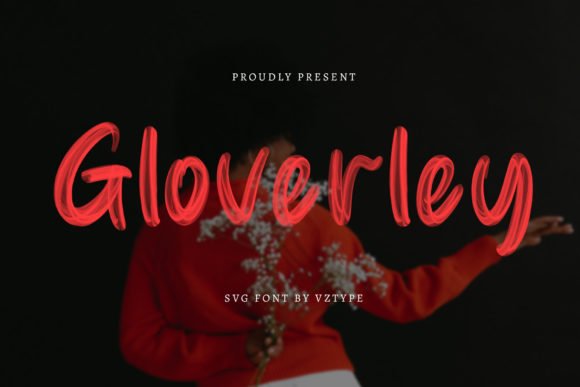
Give Your Creative Ideas a Personal Touch with Gloverley Font
You know that moment when you’re brainstorming ideas and suddenly, something sparks? The room fills with excitement, and you can’t wait to bring your vision to life. For designers, this feeling is a regular occurrence, but sometimes, we need a little extra oomph to make our ideas stand out. That’s where Gloverley Font comes in – a sweet and quirky handwritten font designed to add a personal touch to your creative projects.
With Gloverley Font, you can infuse your designs with a unique, handcrafted feel. Its brush pen-inspired strokes and playful flair make it the perfect choice for anything from invitations and social media graphics to advertisements and packaging. As a designer, you’ll appreciate the versatility of Gloverley Font, which can be used to create a wide range of styles and moods.
Gloverley Font Key Features
- Unique Characteristics: The font features a distinctive, hand-drawn feel with subtle texture and organic elements, giving it a unique aesthetic that sets it apart from other sans-serif fonts.
Gloverley Font Review
Overall, I think Gloverley is an interesting font that has some unique qualities. ✨ I appreciate the bold, playful feel it gives to text, making it perfect for headings and titles. The font’s dynamic curves and varying line widths add a sense of movement and energy, which can be very engaging for readers.
- ✨ Unique, bold feel that grabs attention
- ✨ Suitable for headings and titles
- ✨ Dynamic curves and varied line widths
- ✨ Good for creating a sense of movement and energy
However, I do have a few reservations about Gloverley. ⚠️ One of the main issues is its readability at smaller font sizes. The font’s boldness can make it difficult to read when the text is reduced, which may not be ideal for body text or large blocks of text.
- ⚠️ Poor readability at smaller font sizes
- ⚠️ Not suitable for large blocks of text or body text
- ⚠️ Can be overwhelming in certain contexts
Despite these limitations, I think Gloverley is a great font for specific uses, such as headings, titles, and short paragraphs. It’s perfect for creating a bold, eye-catching design that grabs attention and conveys energy. However, it may not be the best choice for more formal or traditional designs.
Tips for Getting the Most Out of Gloverley Font
Use Gloverley Font for titles and headings to add a touch of elegance and sophistication.
Combine Gloverley Font with other fonts for a unique and creative look.
Gloverley Font is perfect for:
Branding and marketing materials
Editorial and publishing projects
Alternatives to Gloverley Font for Designers
Playfair Display is a luxurious and elegant serif font, ideal for creating a sophisticated and high-end look. It is perfect for use in titles, headings, and other large-scale text where a touch of sophistication is required.
Comparison to Gloverley Font: While both fonts are elegant and sophisticated, Playfair Display is more ornate and luxurious, making it a better choice for high-end designs. Gloverley Font, on the other hand, is more versatile and can be used in a wider range of designs.